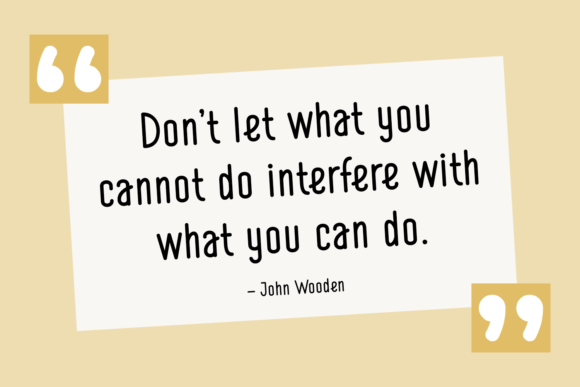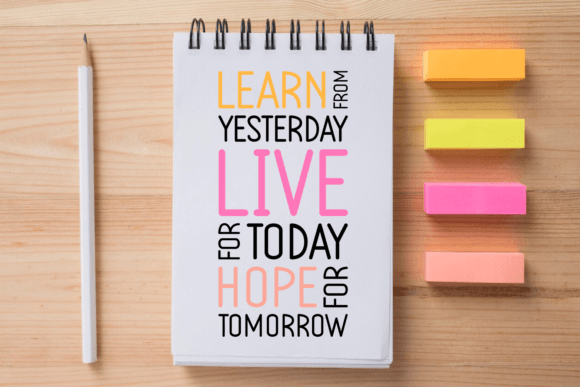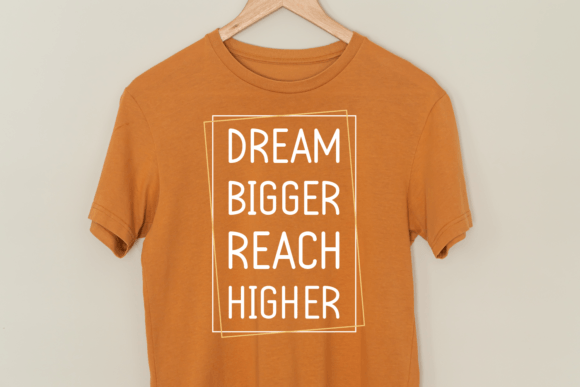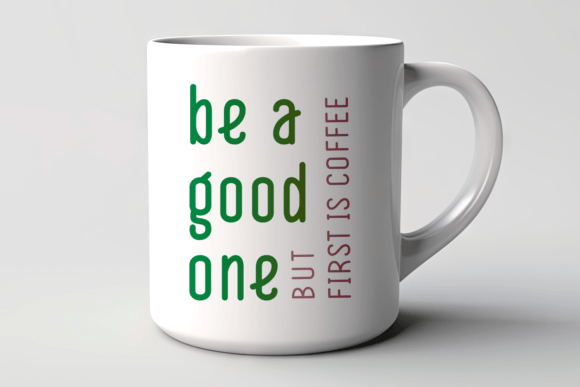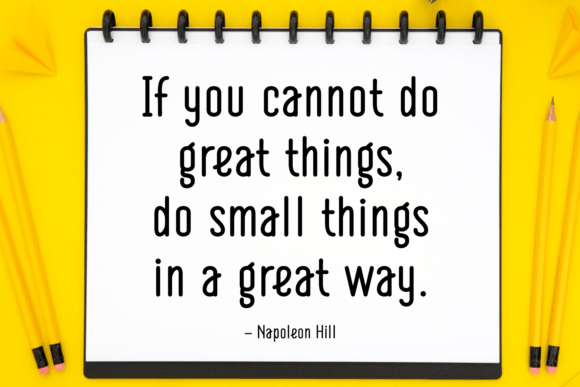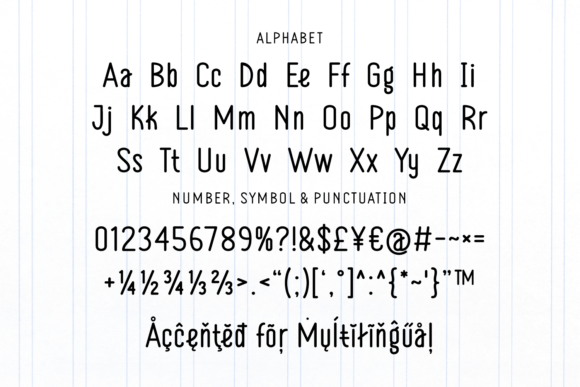
Introducing College Notes Font: The Ultimate Choice for Casual and Creative Designs
Are you a designer, crafter, or educator looking for a font that captures the essence of casual note-taking and adds a touch of nostalgia to your projects? Look no further than College Notes Font, a thin-letter handwritten font that embodies the spirit of spontaneity and authenticity. In this article, we’ll explore the unique features of College Notes Font and how it can elevate your designs, from scrapbooking and journaling to personal blogs and educational materials.
The Inspiration Behind College Notes Font
College Notes Font is inspired by the casual, handwritten notes taken during college lectures. The font’s creator aimed to capture the essence of informal note-taking, where speed and simplicity are key. The result is a font that exudes a sense of authenticity and spontaneity, as if each letter was penned quickly in the margins of a notebook.
Key Features of College Notes Font
So, what makes College Notes Font unique? Here are some of its key features:
- Thin-letter design: College Notes Font features slender strokes that add a light and airy quality to the font.
- Handwritten style: The font has an informal, handwritten style that gives it a personal and relatable feel.
- Authentic look: The font’s design is inspired by actual college notes, giving it an authentic and genuine look.
College Notes Font is ideal for a variety of creative projects, including:
- Scrapbooking: Add a personal touch to your scrapbook pages with College Notes Font.
- Journaling: Use the font to create a relaxed and effortless look in your journal entries.
- Personal blogs: Add a touch of nostalgia and charm to your blog posts with College Notes Font.
- Educational materials: Use the font to create engaging and interactive educational materials, such as worksheets and presentations.
Benefits of Using College Notes Font
So, why choose College Notes Font for your projects? Here are some benefits of using this font:
- Evokes nostalgia: College Notes Font brings back memories of late-night study sessions and classroom camaraderie.
- Adds a personal touch: The font’s handwritten style adds a personal and relatable feel to your projects.
- Creates a relaxed look: The font’s thin-letter design and informal style create a relaxed and effortless look.
Tips for Using College Notes Font
Here are some tips for using College Notes Font effectively:
- Pair with other fonts: Experiment with pairing College Notes Font with other fonts to create a unique and visually appealing look.
- Use for headings and body text: Use College Notes Font for both headings and body text to create a cohesive look.
- Experiment with colors: Try out different colors to add a pop of color to your projects.
College Notes Font is a unique and versatile font that captures the essence of casual note-taking and adds a touch of nostalgia to your designs. With its thin-letter design, handwritten style, and authentic look, this font is perfect for a variety of creative projects, from scrapbooking and journaling to personal blogs and educational materials. Whether you’re a designer, crafter, or educator, College Notes Font is a great choice for adding a personal touch to your projects.